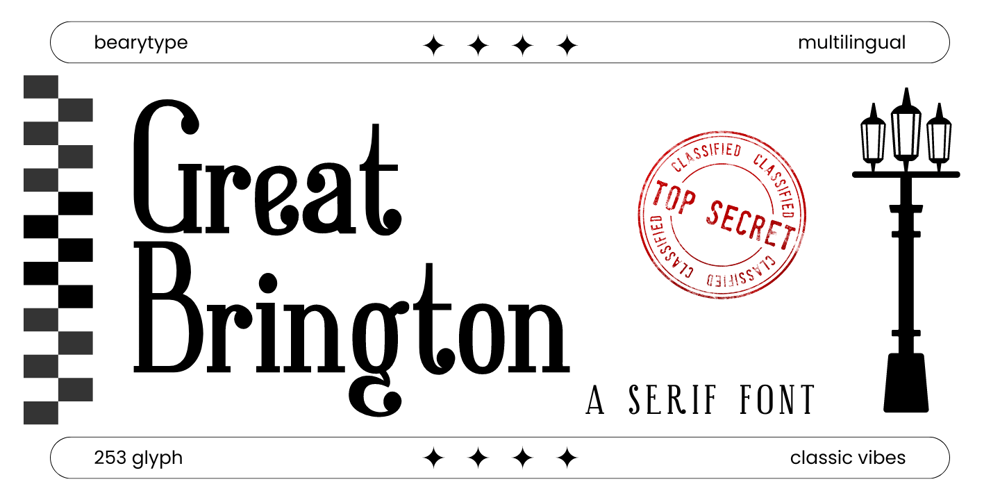
Great Brington
Great Brington font
Great Brington Font Family was designed by Dian Haniffan Hadi and published by Beary. Great Brington contains 1 styles and family package options. Introducing, Great Brington- an beautiful slab serif with a bunch of alternates! Great Brington is a classic and elegant slab serif with a bunch of alternates up to 50 style, for each characters will make your greeting card, logo, craft even more stunning and stand out! Great Brington also support Multiple Languages. Features: – All Uppercase – Number & Symbol – Multi language – Alternates for each characters Happy Creating!